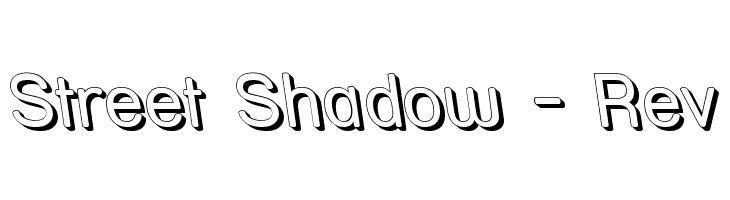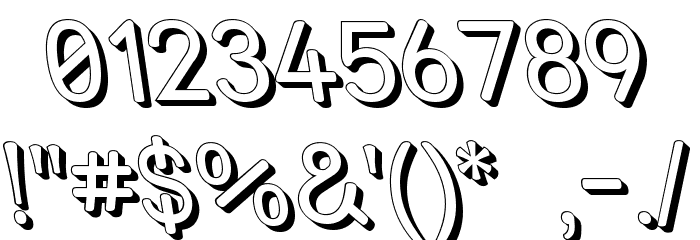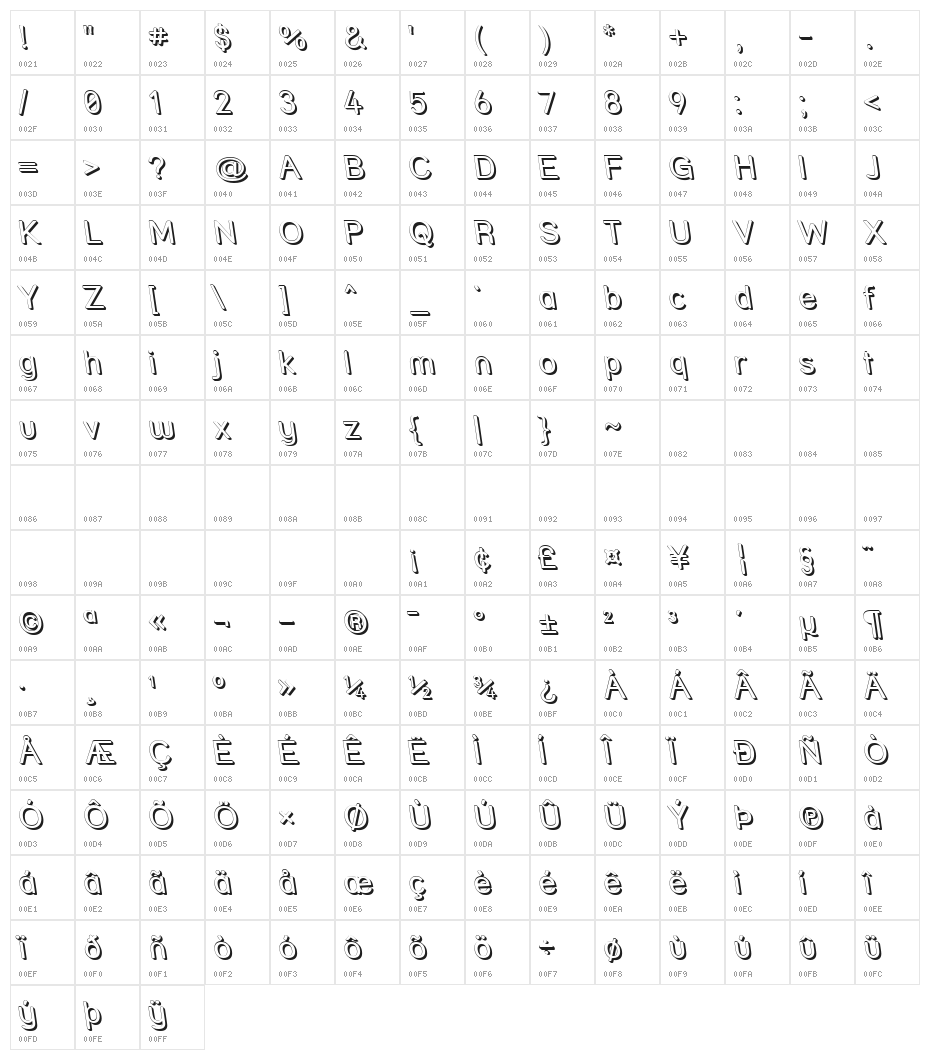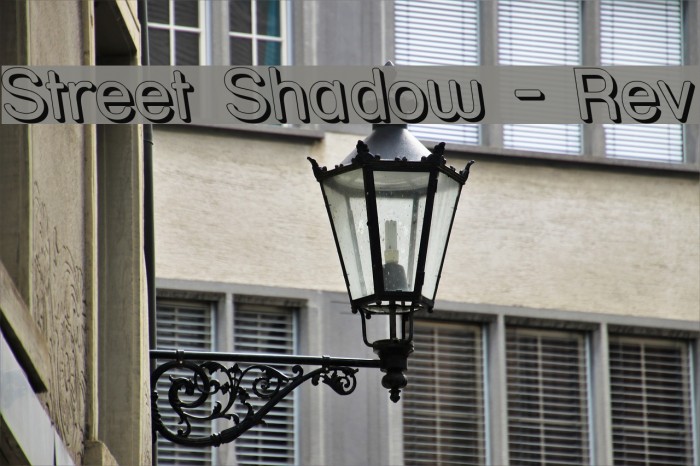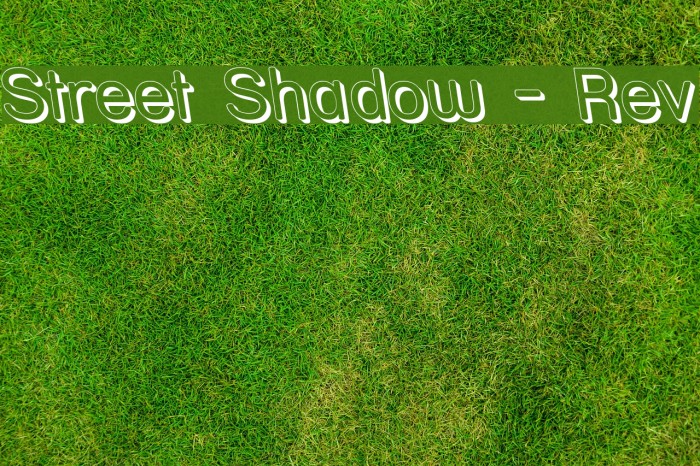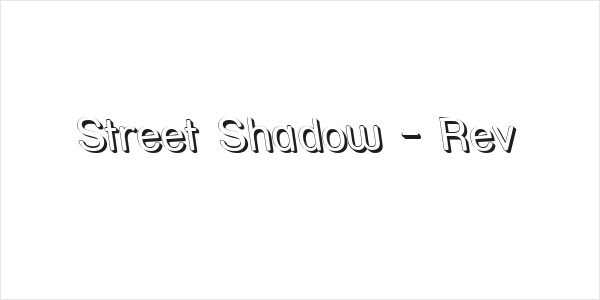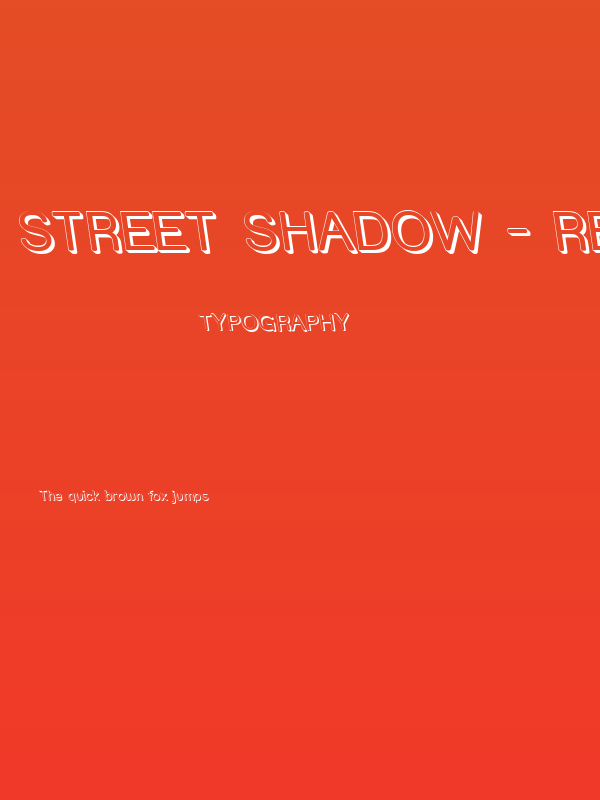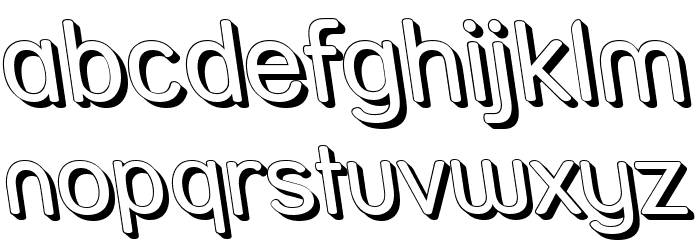
Street Shadow - Rev Font
Street Shadow - Rev Description
This font features a bold, three-dimensional appearance with a shadow effect that gives it a striking and dynamic look. The characters are sans-serif, with clean and smooth lines that enhance readability while maintaining a modern aesthetic. The shadow effect is consistent across all characters, providing a sense of depth and dimension. This style is particularly eye-catching, making it suitable for designs that require a strong visual impact. The font maintains a uniform weight throughout, ensuring consistency and balance in text presentation.
| Proposed Projects | Ideal for posters, headlines, logos, and any design requiring a bold and impactful visual statement. |